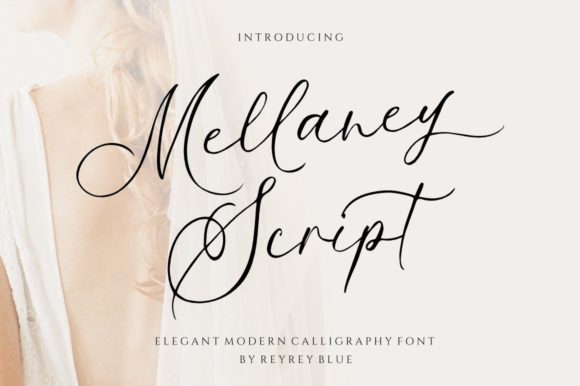
About Mellaney Script Font
Mellaney Script is a unique and elegant handwritten font. It looks beautiful on a variety of designs requiring a personalized style. This font is PUA encoded which means you can access all of the glyphs and swashes with ease!Â